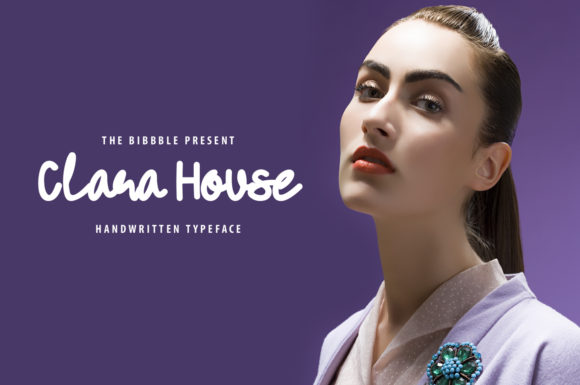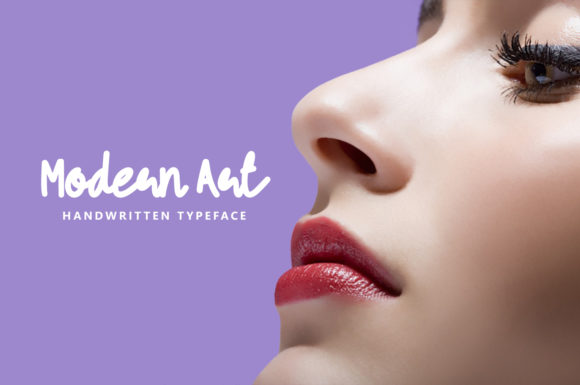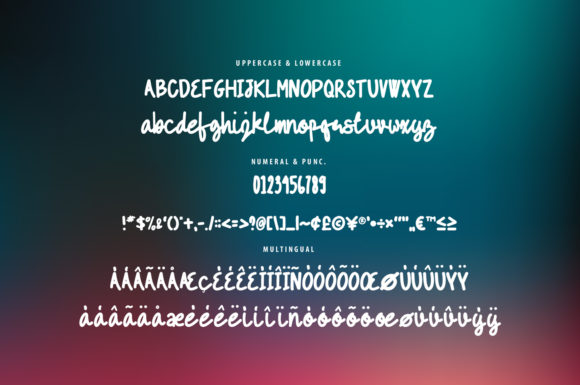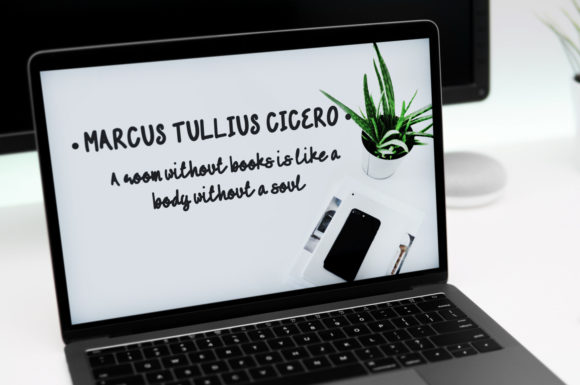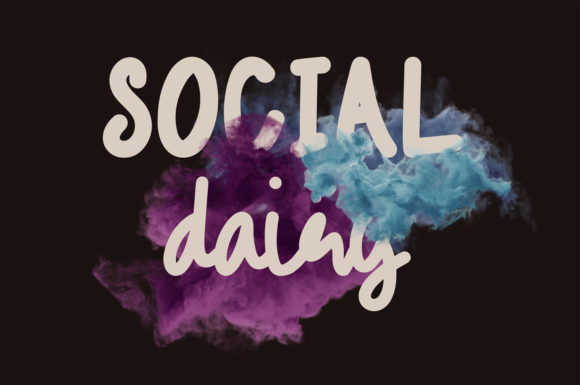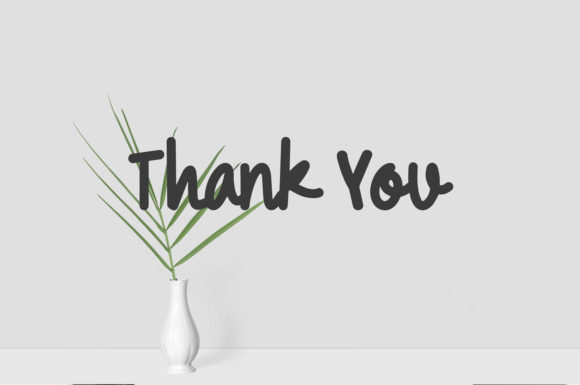
Clara House Font
About Clara House Font
Clara House is modern script font with a unique vibe. Every one of its letters has been carefully crafted to make a wide variety of text look beautiful.